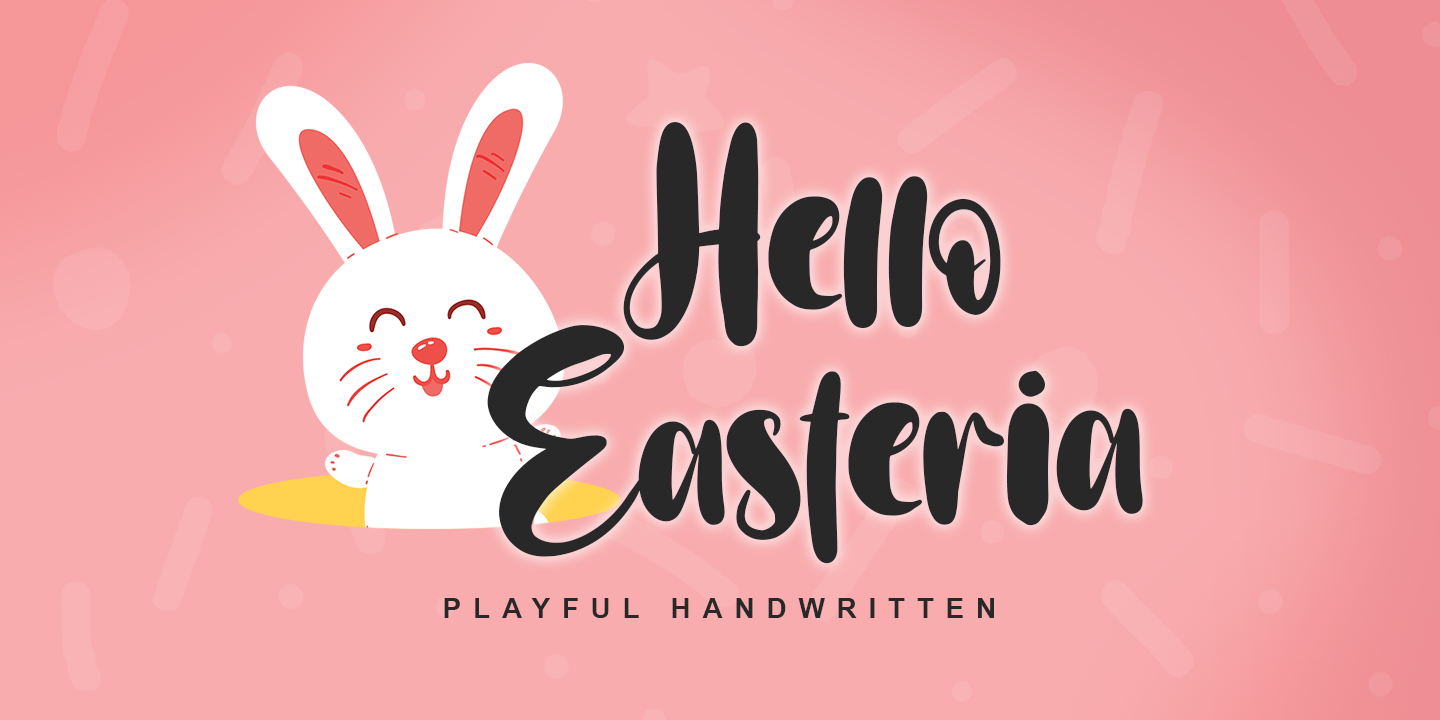
Hello Easteria Font Free Download – A Playful & Whimsical Handwritten Typeface
Add a touch of joyful charm to your spring designs with Hello Easteria Font Free Download, a delightful handwritten font bursting with personality. Perfect for seasonal projects, cute branding, and cheerful invitations, this font brings a lighthearted energy to any creative work.
Why Hello Easteria Font Stands Out
1. Cheerful Design Features
Bouncy baseline with playful variations
Soft rounded letterforms
Hand-drawn imperfections for authenticity
Easter/spring greeting cards
Children's book designs
Bakery & café branding
Party invitations
Craft project packaging
3. Premium Features Included
550+ glyphs with stylistic alternates
Multilingual support
PUA encoded characters
Standard ligatures
Creative Ways to Use Hello Easteria Font
DIY holiday cards
Spring scrapbook pages
Classroom decorations
Recipe card designs
Seasonal product packaging
Kids' brand identities
Craft store signage
Easter event promotions
Designer Tips for Best Results
Combine with soft pastel colors
Accent with watercolor textures
Use with hand-drawn doodles
18-24pt for perfect readability
Works beautifully in mixed case
Great for short, cheerful messages